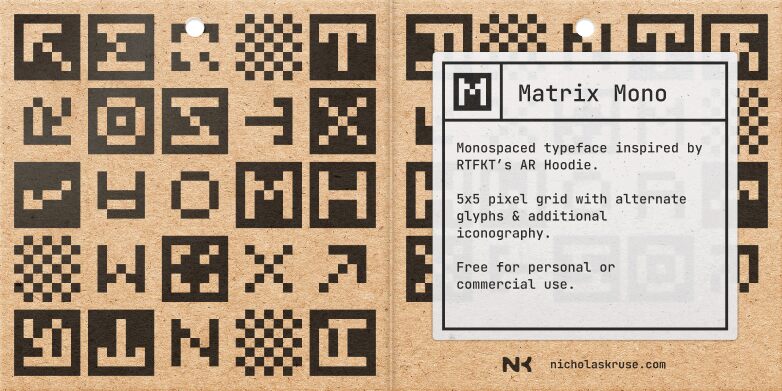
Matrix Mono
Matrix Mono font by Nicholas Kruse is a free expanded bitmap font that brings digital design to the next level. Matrix Mono possesses a pixelated appearance with a retro-tech aesthetic that’s both futuristic and from the past. Perfectly bound and geometric, this all caps pixelated font will make for an interesting addition to any design project.
Incorporate this typeface into branding and packaging designs, logo designs, book cover titles, poster headlines, titles for video games & apps; or websites. It can also be freely used in badges, clothing items, stationery designs like notebooks covers or mugs/ cups’ designs.